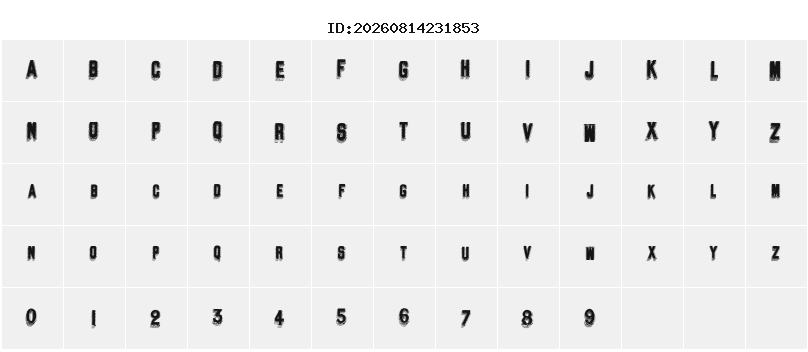
• Font Name: StandardHeader
• Full Font Name: StandardHeader
• Version: Version 1.00 April 18, 2013, initial release
• Designer: Xerographer Fonts Max Infeld
• Manufacturer: Xerographer Fonts
• Description: Made at Bidwell Park in Chico,CA a custom template by max infeld
About StandardHeader.ttf
StandardHeader.ttf is a modern, elegant sans-serif font designed for ultimate readability and visual harmony. Perfect for branding, headlines, web design, and print materials.